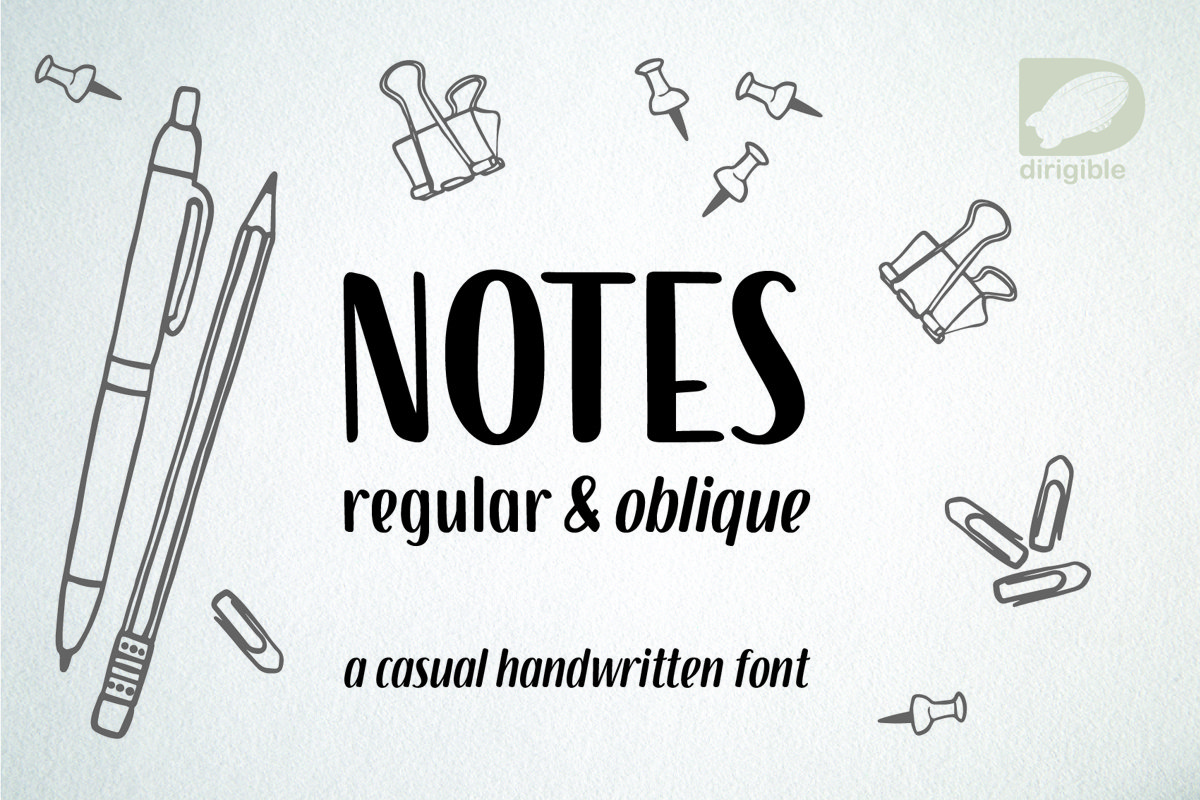
Notes
Two handmade sans-serif condensed fonts: Regular (upright) and Regular Oblique. Both contain lower and uppercase, numbers, punctuation, international characters as well as Cyrillic.